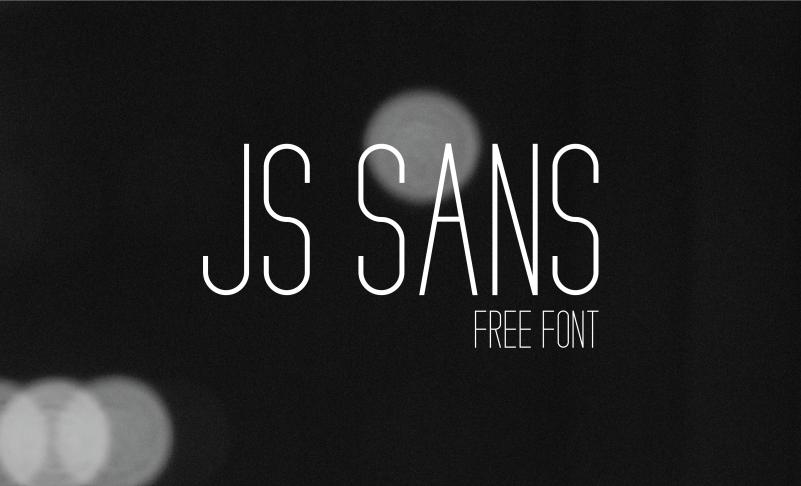
JS Sans Font
It’s a modern and minimal sans serif typeface with for minimal typography designs, JS Sans can keep the minimalism at its level best and is a perfect choice for, Display, headlines, paragraph, subheading, notes, Big Banners. Classic & Decorative Typography Designs.